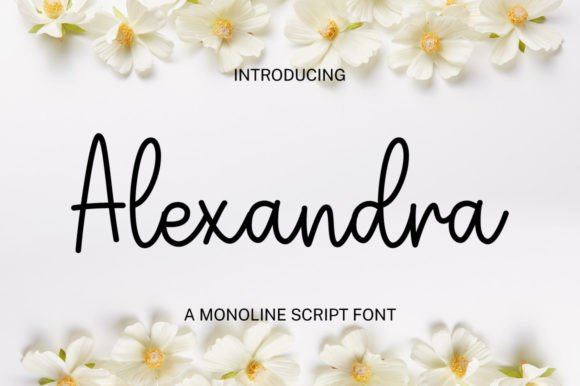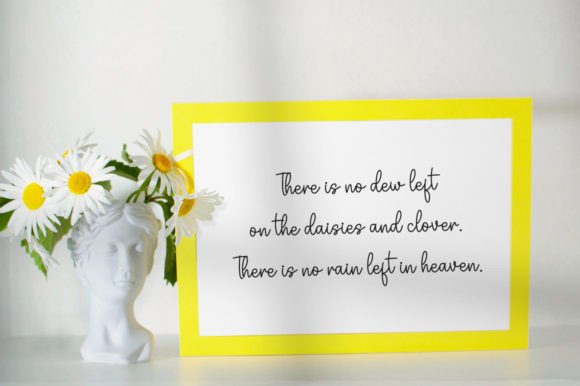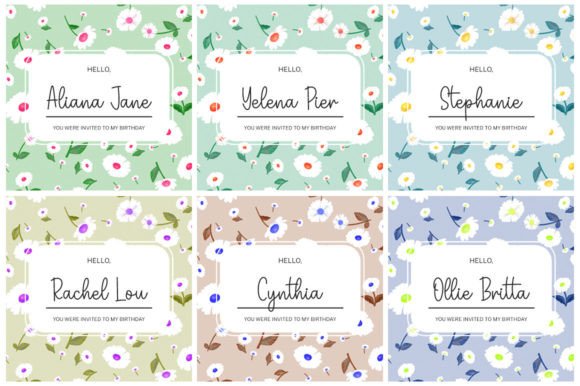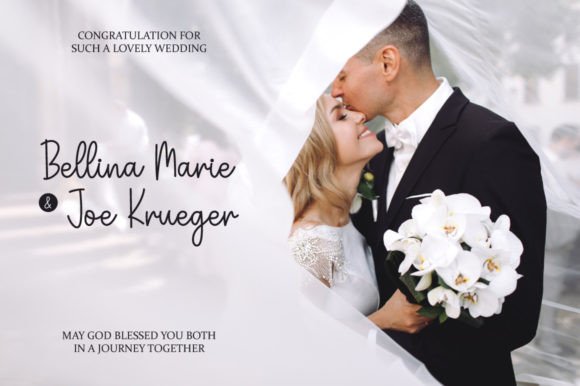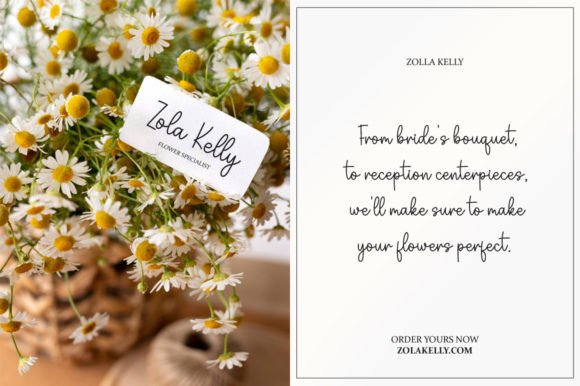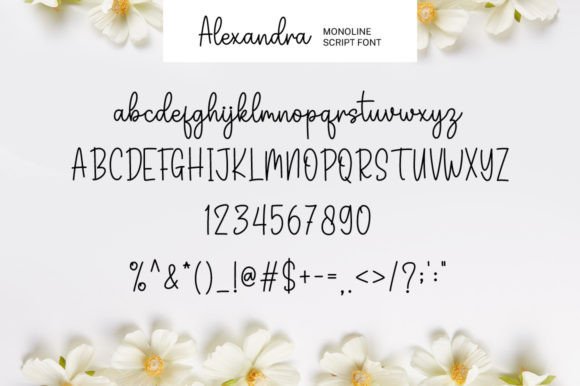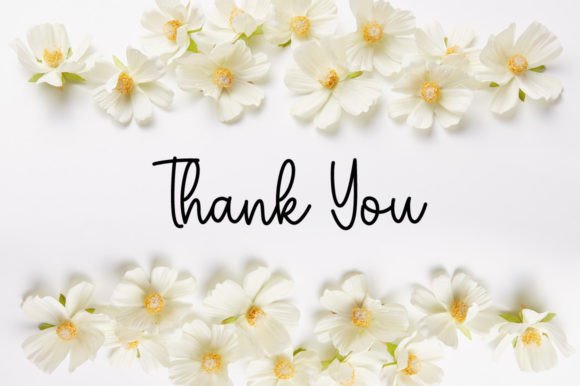
Alexandra Font
Alexandra Font: Elegant Handwriting for Romantic Designs
“Alexandra” is a graceful handwritten font that brings elegance and joy to your designs. It’s perfect for wedding invitations, cards, and other projects needing a personal touch.
Key Features of Alexandra Font
• Elegant Style: Alexandra combines grace with a romantic vibe.
• Versatile Use: Ideal for various projects, especially those related to love and special events.
• Personalized Touch: Adds a unique, handwritten feel to your designs.
Wedding Stationery
Alexandra’s romantic style is ideal for creating beautiful wedding invitations and other wedding-related designs.
Greeting Cards
Use Alexandra to design heartfelt cards for birthdays, anniversaries, and other special occasions.
Branding for Romantic Businesses
Alexandra can help create a soft, elegant logo design for businesses in the wedding, beauty, or lifestyle sectors.
Why Choose Alexandra Font?
Alexandra offers more than just beautiful letters. Here’s why it stands out:
• Adds a romantic and personal touch to designs
• Works well for both digital and print projects
• Helps create a lasting, emotional impression
By using Alexandra, you open up new design possibilities. Its elegant style works well in many contexts, from website headers to social media graphics.
If you want a font that’s both elegant and romantic, Alexandra is an excellent choice. It’s perfect for adding a personal touch to your work, especially for projects related to love and special events.
Explore how Alexandra can improve your designs. From wedding stationery to greeting cards, this font brings a graceful and heartfelt feel to your creations.